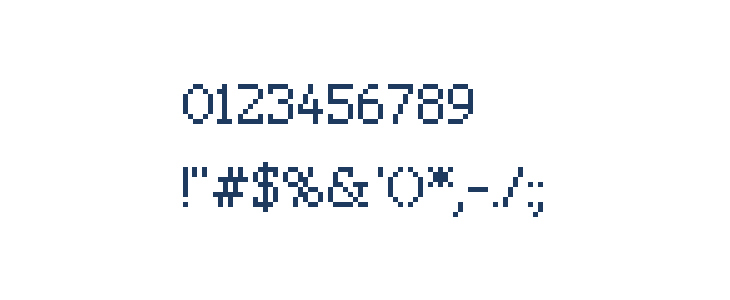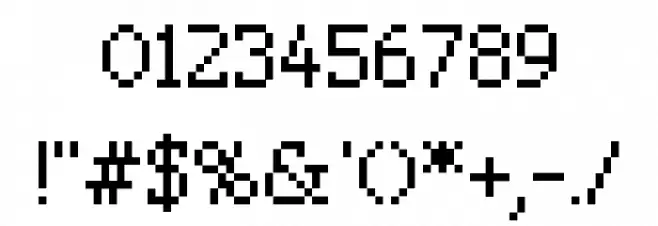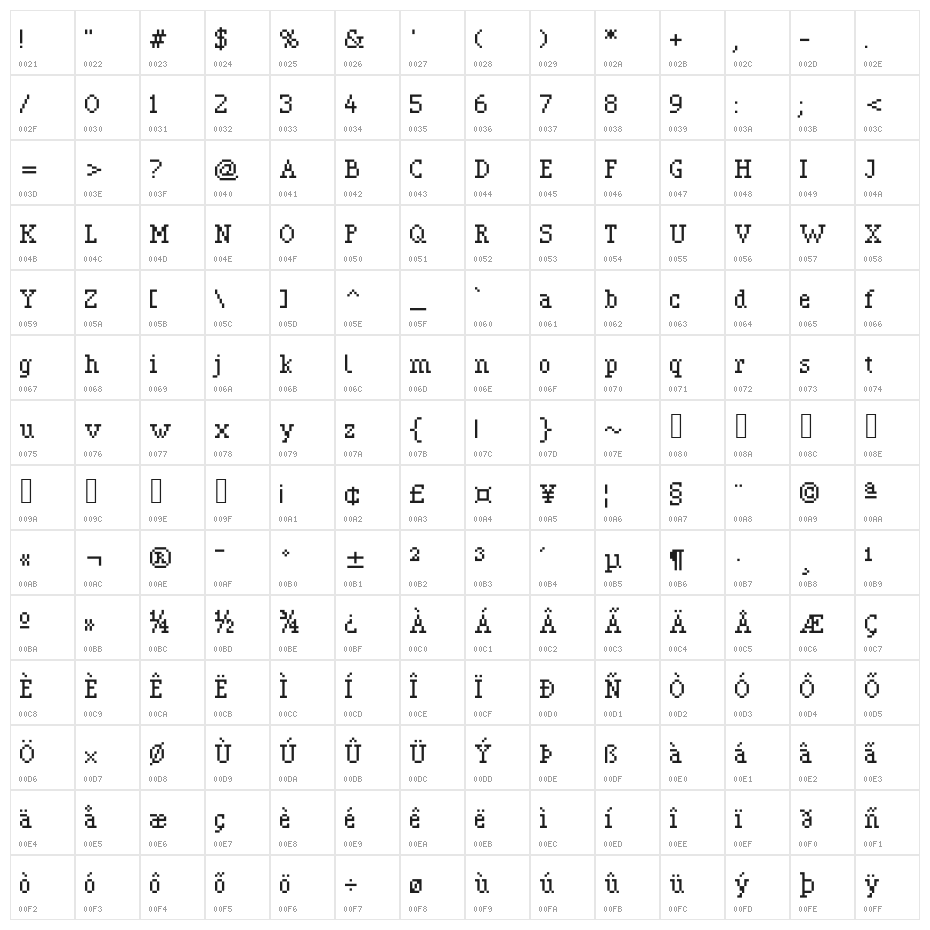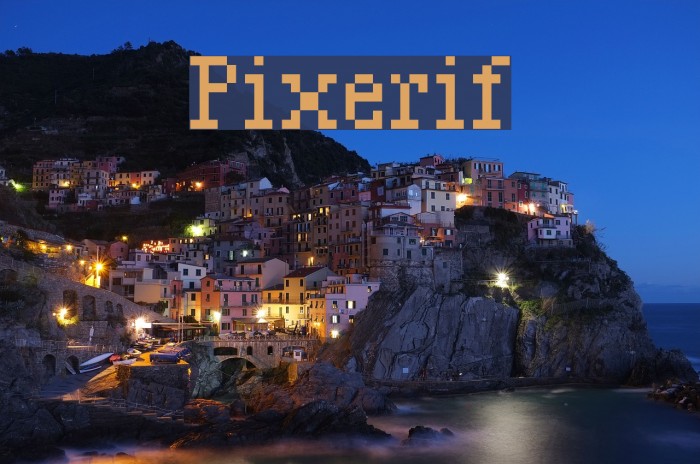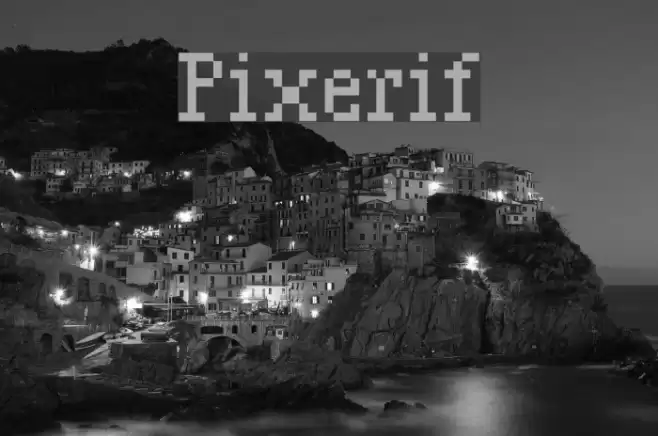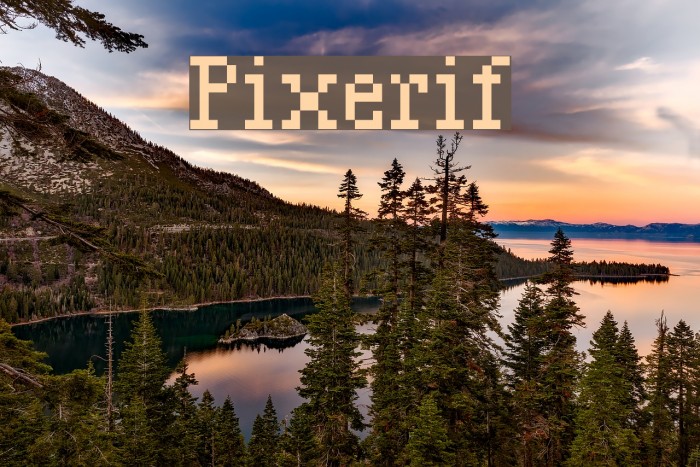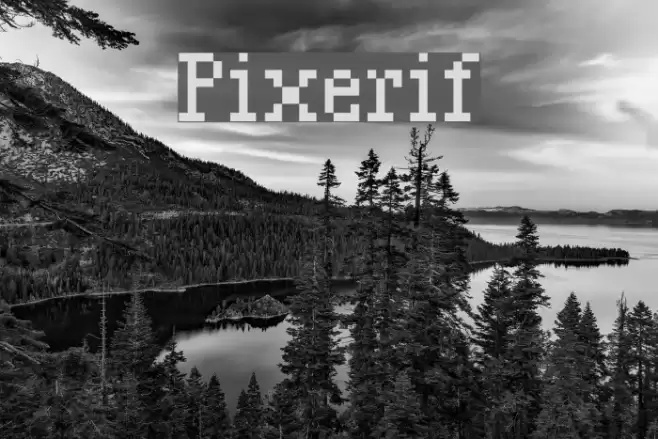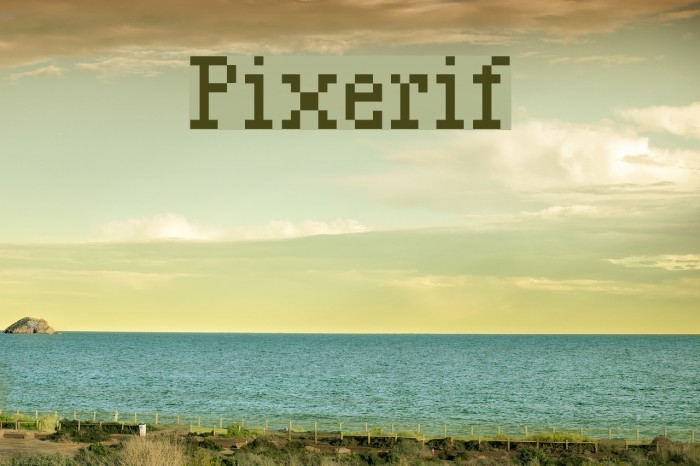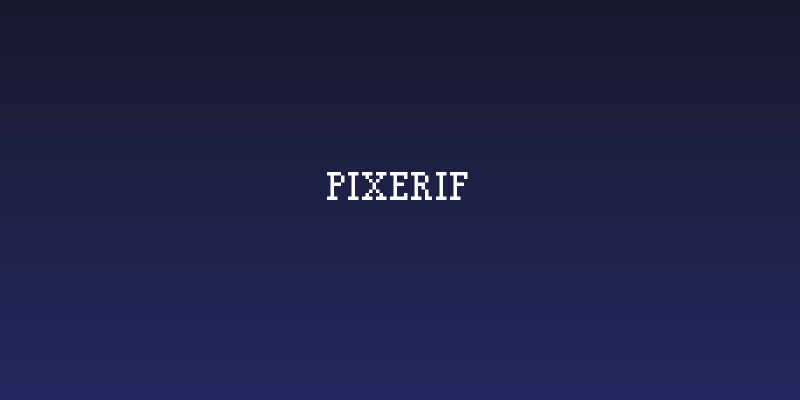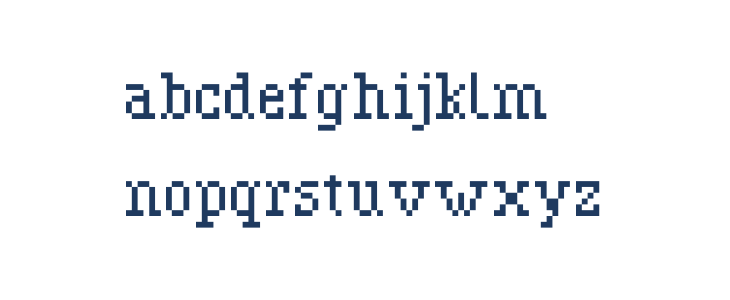
Pixerif Font
Pixerif Description
This font exhibits a pixelated, retro style reminiscent of early digital displays and video games. Each character is composed of distinct square blocks, creating a grid-like appearance. The uppercase and lowercase letters maintain a consistent height, contributing to a uniform look. Numbers and special characters follow the same pixelated design, ensuring cohesive visual harmony across all elements. The font's nostalgic aesthetic is ideal for projects aiming to evoke a sense of vintage digital technology or retro gaming culture.
Thumaszz - Thomas Versteeg - OreadGames.com
| Use Case | Logos, Headlines, Digital Art |
| Proposed Projects | Ideal for retro video game designs, digital art projects, or any creative work that seeks to capture the essence of early computer graphics. |